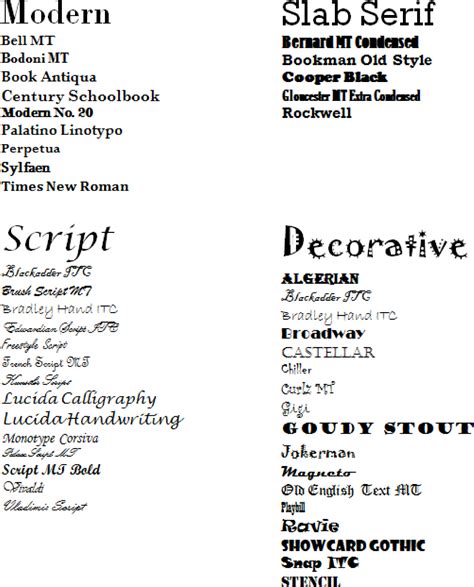
Top 10 Beautiful Font Combinations For Your Design In 2023
Microsoft Word Font Combinations. Minion pro & super grotesk. Helvetica and garamond is a popular font combination because of its compatibility.
Minion pro & super grotesk. Web 10 most professional font combinations 1. Mixing two such strong typographic personalities is a risk that rarely pays off as they. Helvetica and garamond is a popular font combination because of its compatibility. Web 37 perfect font pairings for your next project. To embed fonts in a microsoft office word document or powerpoint presentation, see embedding fonts on the pptools site. Locate custom fonts on the web in addition to acquiring and using fonts installed with. Century gothic/pt serif) century gothic was originally made as a substitute font for avant garde. Don’t leave it all to trial and error; Century gothic & pt serif.
Century gothic/pt serif) century gothic was originally made as a substitute font for avant garde. Web 37 perfect font pairings for your next project. Minion pro & super grotesk. Helvetica and garamond is a popular font combination because of its compatibility. Century gothic/pt serif) century gothic was originally made as a substitute font for avant garde. Locate custom fonts on the web in addition to acquiring and using fonts installed with. Century gothic & pt serif. Don’t leave it all to trial and error; Web 10 most professional font combinations 1. Mixing two such strong typographic personalities is a risk that rarely pays off as they. To embed fonts in a microsoft office word document or powerpoint presentation, see embedding fonts on the pptools site.